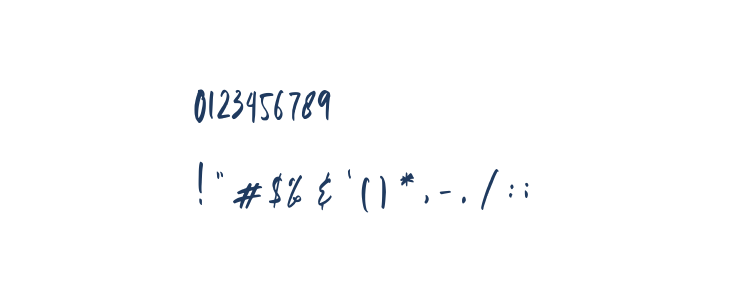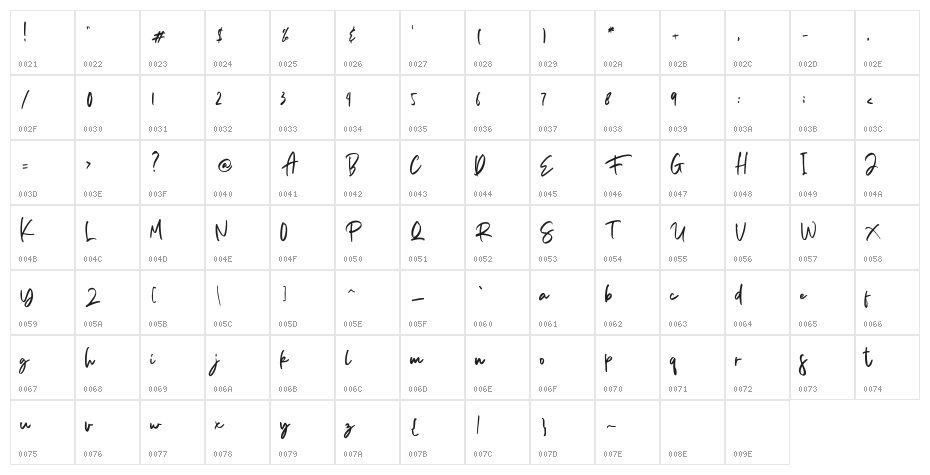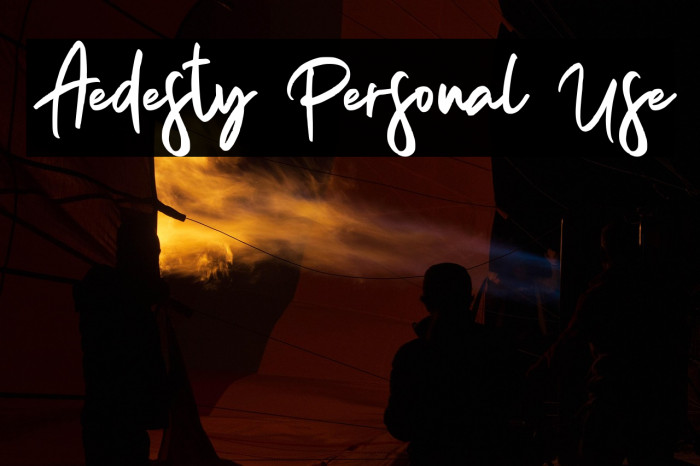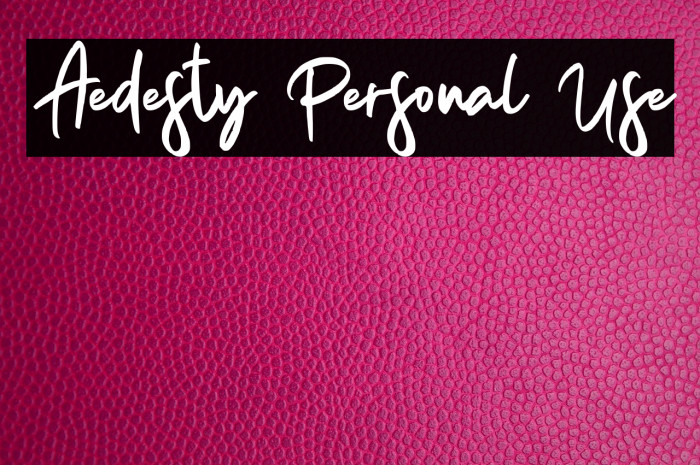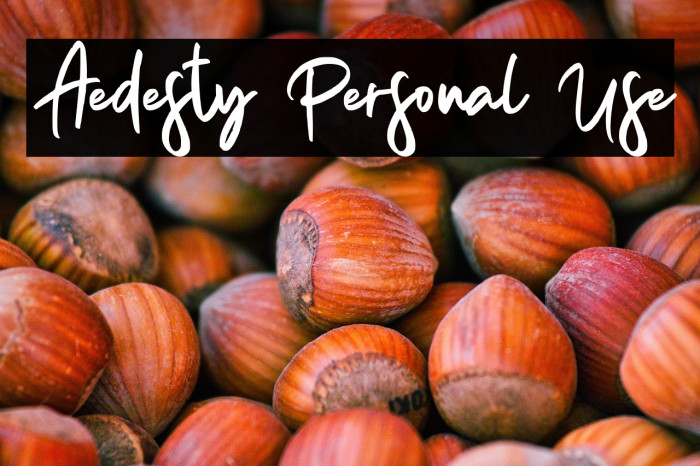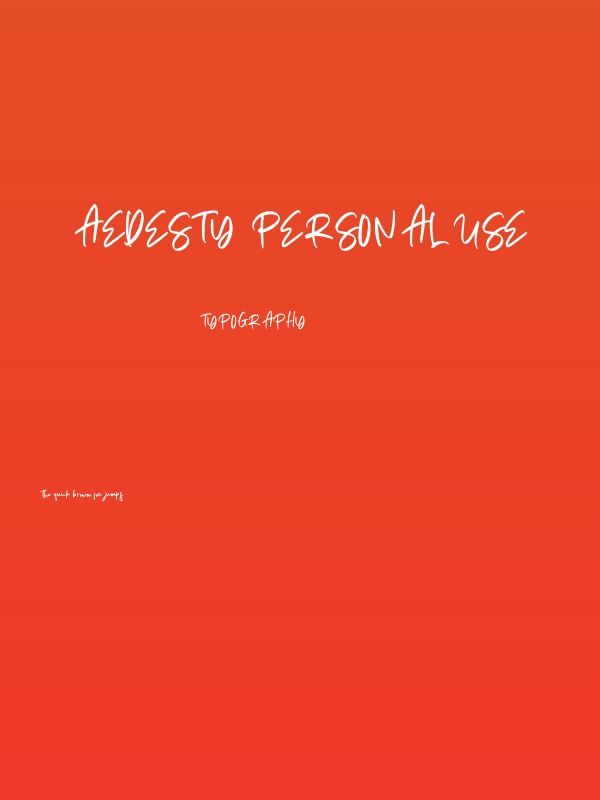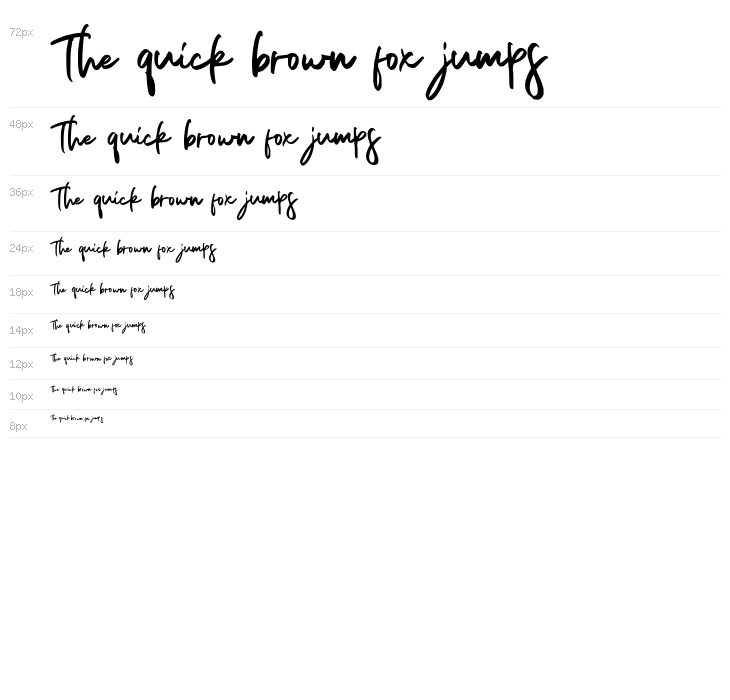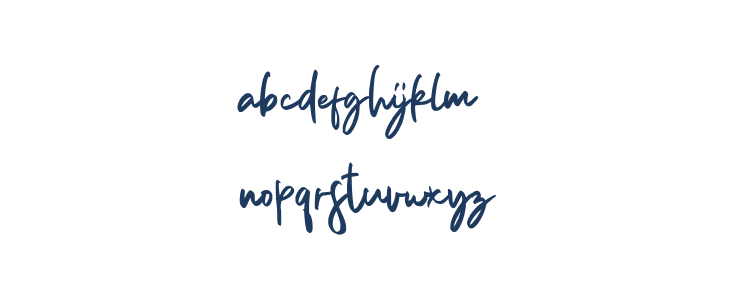
Aedesty Personal Use Font
Aedesty Personal Use Description
This font features a lively and expressive handwritten style, characterized by its fluid and dynamic strokes. The uppercase letters are bold and slightly slanted, giving a sense of movement and energy. The lowercase letters maintain a consistent flow, with some letters featuring unique loops and curves that add to the font's charm. Numbers are clear and maintain the same playful style, ensuring readability while keeping the overall aesthetic intact. The special characters are well-integrated, matching the font's energetic and informal vibe. This font is perfect for projects that require a personal touch, such as invitations, greeting cards, or branding materials that aim to convey a sense of warmth and approachability.